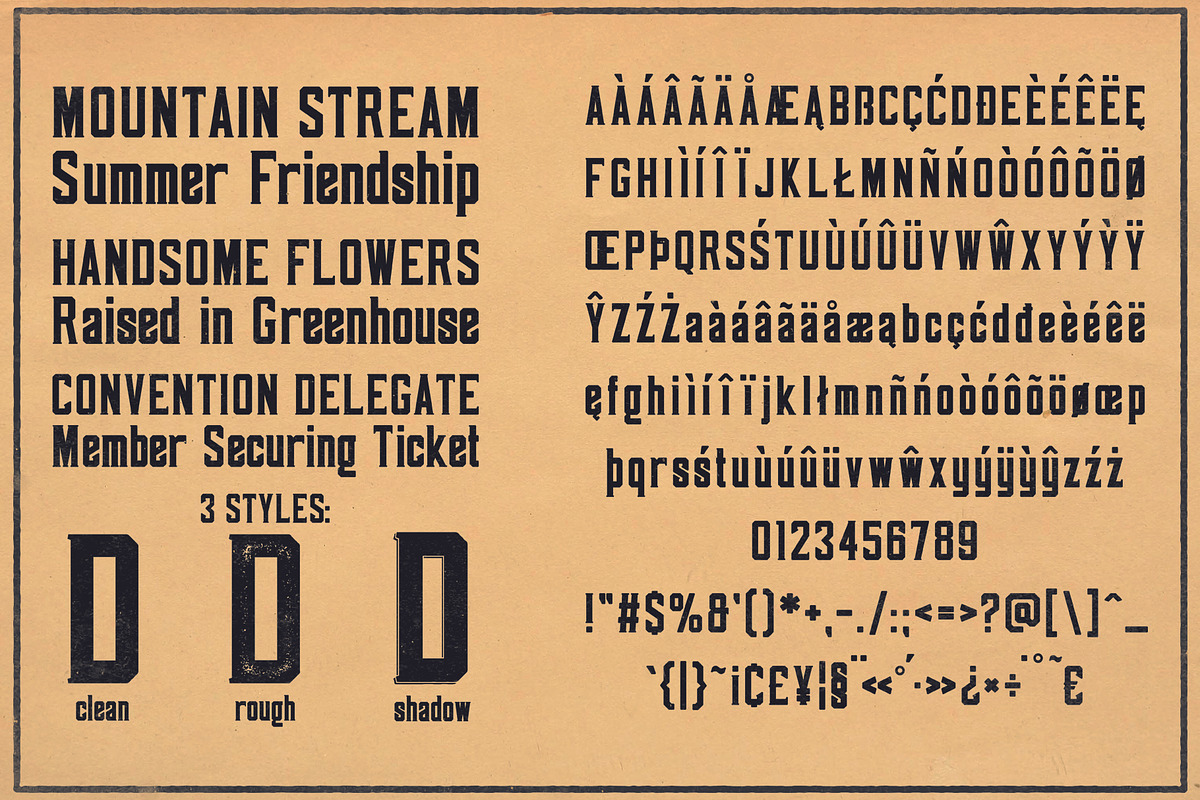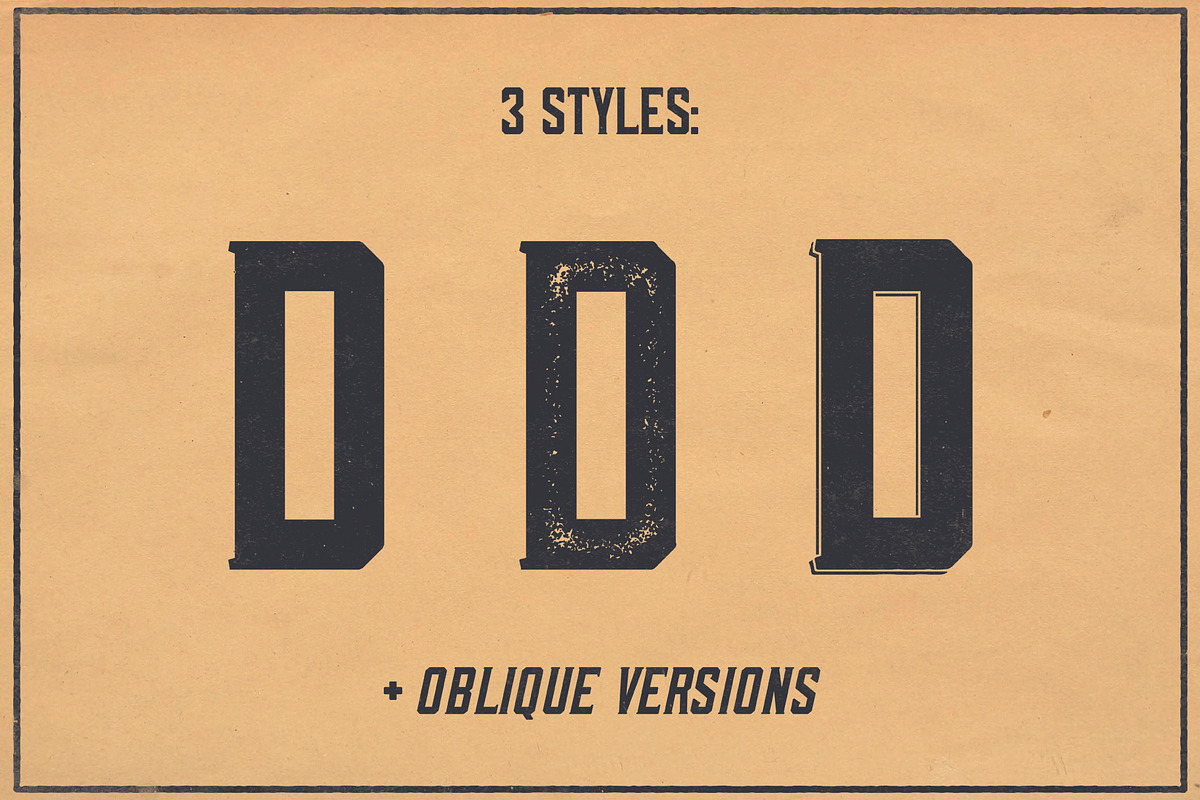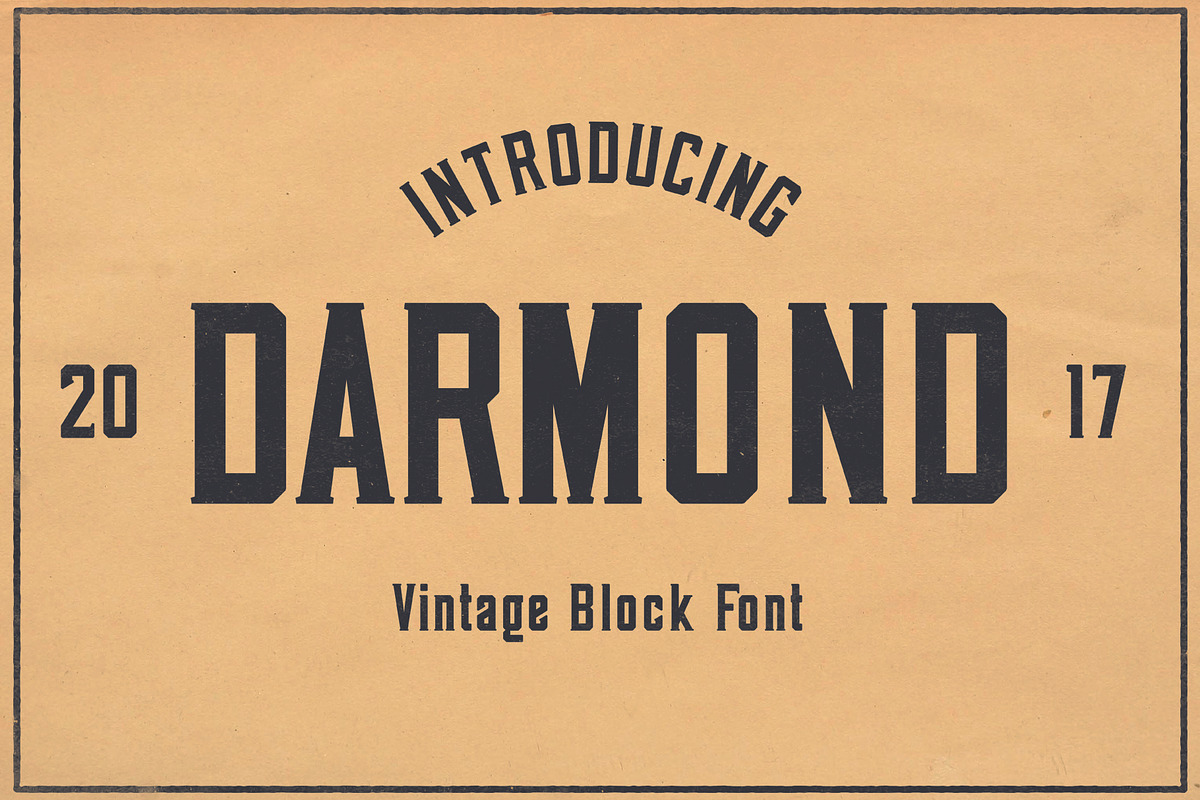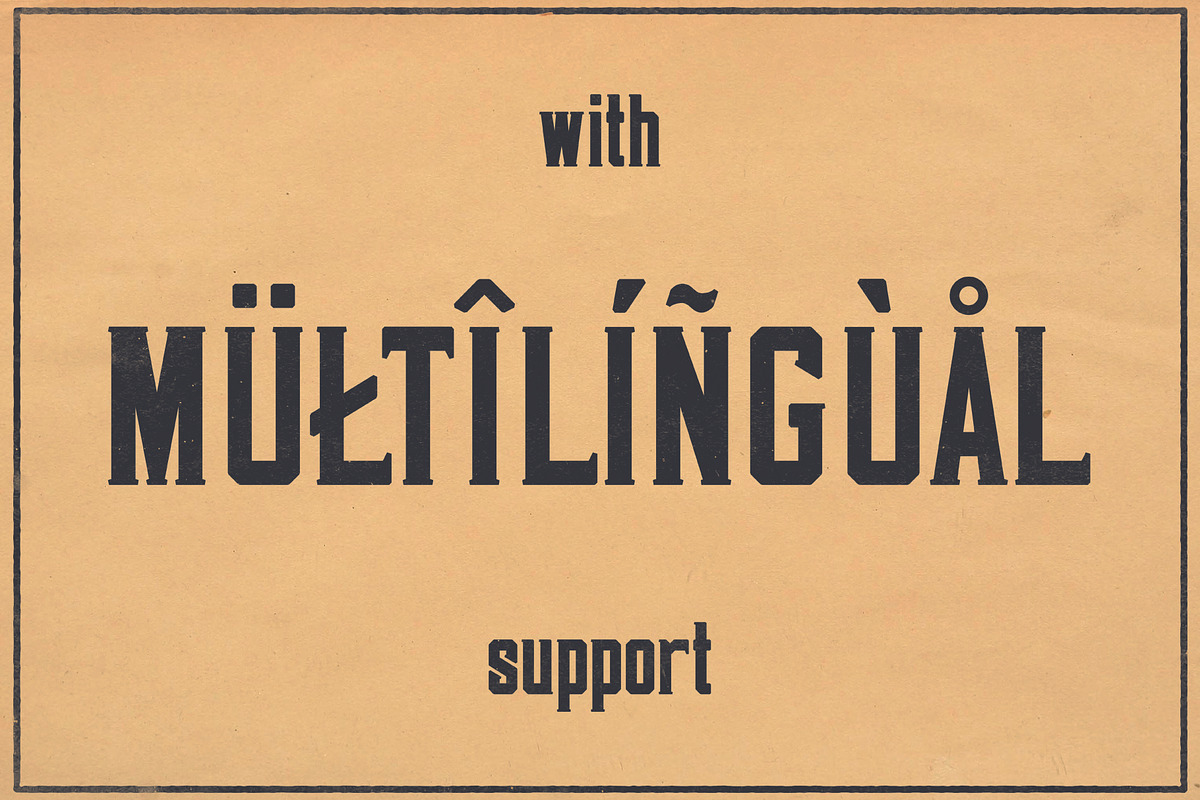
Darmond Font
Darmond is a vintage display serif font with upper and lower case letters. Darmond comes in three styles: clean, rough (textured) and shadow. This typeface is great for logos, titling, signs, labels, brandings and more. If You want to add retro touch to Your design - Darmond is for You!
Darmond comes in six styles:
Danish, English, Finnish, French, German, Icelandic, Irish, Italian, Norwegian, Portuguese, Polish, Spanish, Swedish, if you not sure with it please type it out in the text box below or check Characters Map screenshots, i hope it will support your language :)